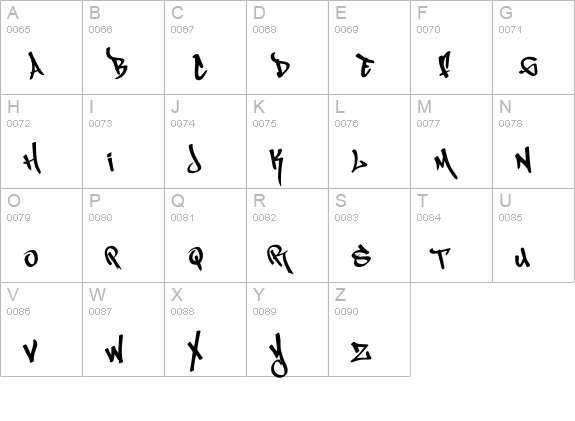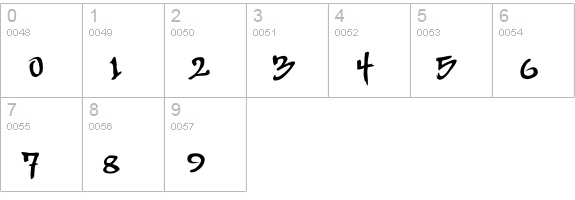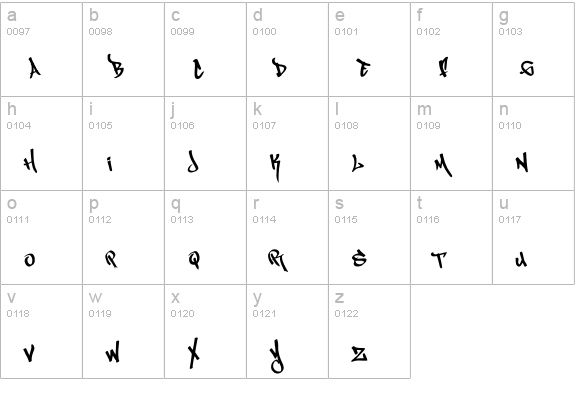
MagikMarker Free Font Details
MagikMarker Free font is a stunning typeface that captures the essence of creativity and originality. With its unique and playful design, this font is perfect for adding a touch of magic to any project. Whether you're designing a logo, creating a poster, or crafting a social media graphic, MagikMarker Free font will instantly captivate your audience. This font features beautifully hand-drawn characters, each carefully crafted to exude a sense of whimsy and charm. Its irregular strokes and slightly uneven lines give it a distinct handmade feel, making it perfect for projects that require a personal touch. From its bold uppercase letters to its delicate lowercase characters, MagikMarker Free font offers a versatile range of options for your creative endeavors. One of the best things about MagikMarker Free font is that it is freely available to download at FontsMarket.com. This means that you can easily access and utilize this incredible font without any cost. Whether you're a professional designer or a hobbyist, this font provides an incredible opportunity to elevate your designs without breaking the bank. Not only is MagikMarker Free font visually appealing, but it also offers excellent legibility, ensuring that your message is conveyed clearly and effectively. Its clean and crisp lines make it easy to read, whether it's used for headlines, body text, or even small captions. Add a touch of enchantment to your next project with MagikMarker Free font. Its versatile style and freely available nature make it the perfect choice for any creative endeavor. Download it today from FontsMarket.com and let your imagination run wild.